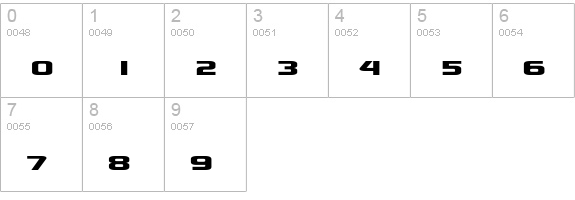
xscale Font Details
The xscale font is a modern and sleek typeface that exudes elegance and sophistication. Its clean lines and sharp angles make it perfect for creating eye-catching designs that demand attention. Whether you're working on a branding project, a website design, or any other creative endeavor, the xscale font will elevate your work to the next level. The best part is that this font is completely free to use! You can download it easily from FontsMarket.com and start using it in your projects right away. Don't miss out on this fantastic opportunity to add a touch of style and professionalism to your designs with the xscale font.